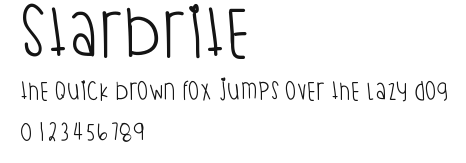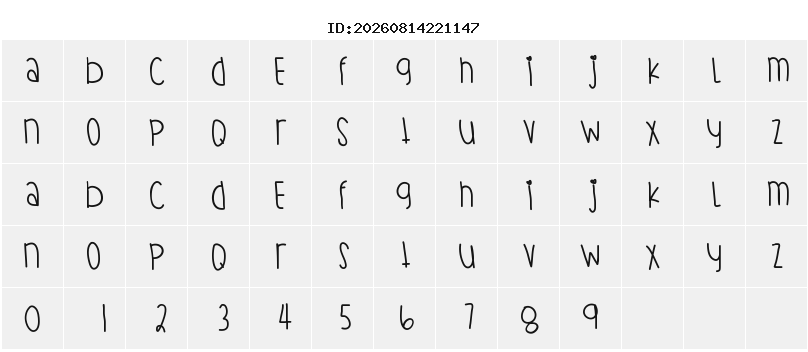
Starbrite Preview
• Font Name: Starbrite
• Full Font Name: Starbrite
• PostScript Name: Starbrite
About Starbrite.ttf
Starbrite.ttf is a modern, elegant sans-serif font designed for ultimate readability and visual harmony. Perfect for branding, headlines, web design, and print materials.